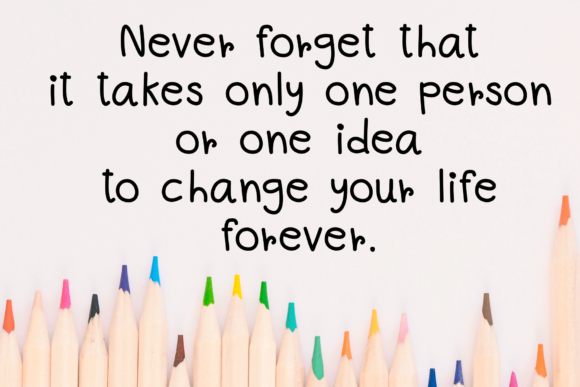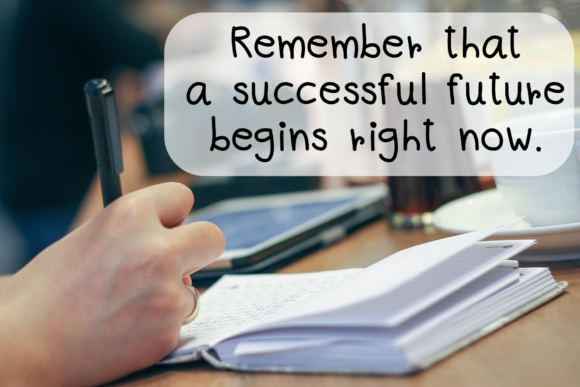
About Homework Font
Homework is a simple handwritten font that has a clean, thin and smooth vibe. It will be a hit for any design that you want to add it to.
It is suitable for creating any branding, product packaging, invitation, quote, t-shirt, label, poster, logo that you wish to develop.